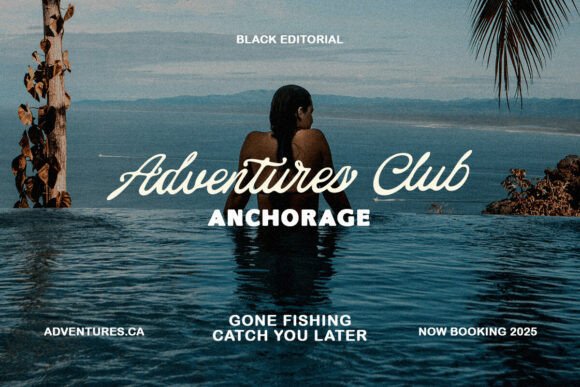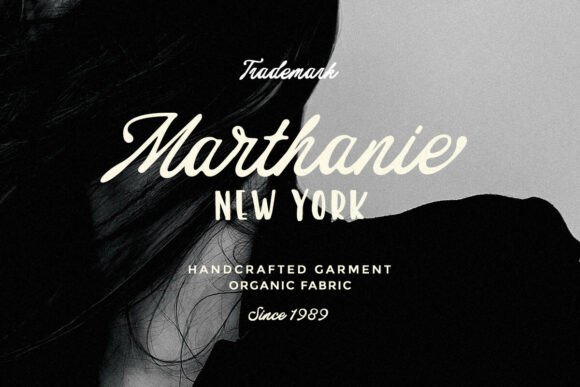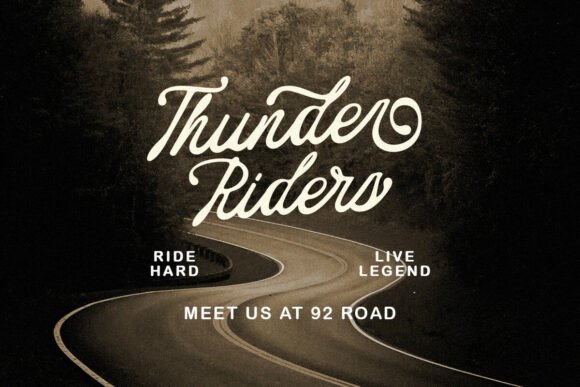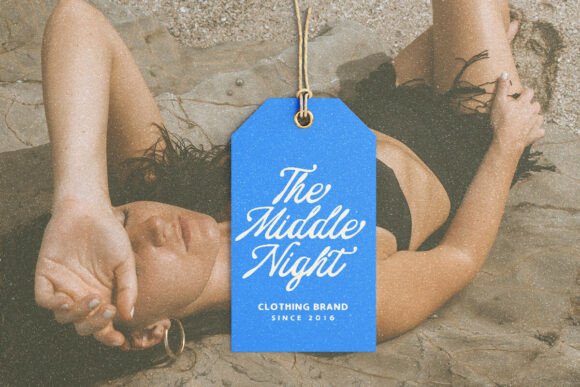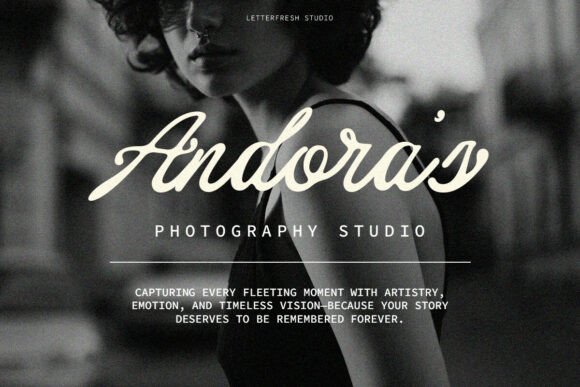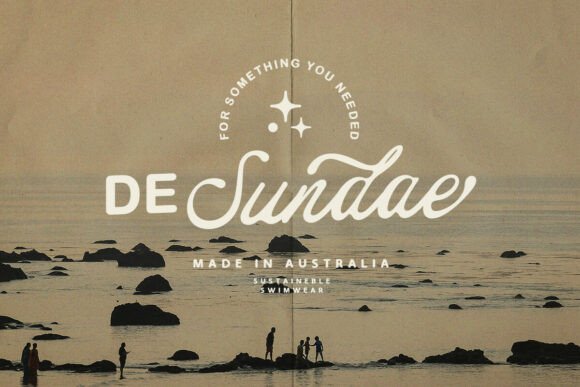
Unlocking the Timeless Charm of Black Editorial Font
In the realm of typography, certain fonts manage to capture the essence of an era, blending vintage charm with modern flair. The Black Editorial Font is one such typographic marvel, inspired by the nostalgic vibes of modern vintage and retro styles, combined with the classic elegance of old American traditional style. This unique fusion results in a font that is not only visually striking but also incredibly versatile, making it a favorite among designers and crafters alike.
The Inspiration Behind Black Editorial Font
The Black Editorial Font draws its inspiration from the rich tapestry of vintage and retro typography, with a special nod to the traditional American styles that have defined the country’s visual and cultural landscape. This font encapsulates the spirit of a bygone era, bringing to life the charm and character of handwritten letters from a time when personal correspondence was an art form.
Key Features of Black Editorial Font
- Handwritten Style: At its core, Black Editorial Font boasts a beautifully crafted handwritten style that exudes warmth and personality. Its letters are designed to mimic the fluidity and imperfections of handwriting, giving any project a personal touch.
- Instant and Practical: One of the standout features of Black Editorial Font is its practicality. It allows users to create handwritten letters and designs instantly, saving time without compromising on the aesthetic appeal.
- Versatility: Whether it’s for crafting logos, designing product packaging, creating engaging social media content, or making personalized greeting cards, Black Editorial Font proves to be an incredibly versatile tool. Its adaptability to various design needs makes it a valuable asset in any designer’s toolkit.
Applications of Black Editorial Font
The applications of Black Editorial Font are vast and varied, catering to a wide range of creative and commercial needs. Here are some of the most popular uses:
- Logos: Create unique and memorable logos that stand out with a touch of vintage elegance.
- Handwritten Quotes: Add a personal and emotional touch to quotes and phrases, making them perfect for sharing on social media or printing on merchandise.
- Product Packaging: Elevate your brand’s packaging with custom labels and designs that reflect a classic, timeless appeal.
- Headers and Posters: Design eye-catching headers and posters for events, advertisements, or informational materials that demand attention.
- Merchandise: From t-shirts to mugs, Black Editorial Font can be used to create unique and appealing designs for merchandise.
- Social Media: Enhance your social media presence with custom graphics, stories, and posts that showcase a distinctive and engaging style.
- Greeting Cards: Design personalized and heartfelt greeting cards for any occasion, adding a special touch to your messages.
Why Designers and Crafters Love Black Editorial Font
Designers and crafters are drawn to Black Editorial Font for its unique blend of vintage inspiration and modern usability. It offers a distinctive look that sets designs apart in a crowded digital landscape. Moreover, its ease of use and versatility make it an efficient choice for projects that require both creativity and practicality.
Black Editorial Font stands as a testament to the enduring appeal of vintage and retro typography, fused with the classic charm of traditional American styles. Its handwritten elegance, combined with its practicality and versatility, makes it an indispensable tool for designers and crafters looking to infuse their projects with a touch of timeless sophistication. Whether you’re creating logos, designing merchandise, or crafting personalized greeting cards, Black Editorial Font offers a unique typographic solution that is sure to leave a lasting impression.